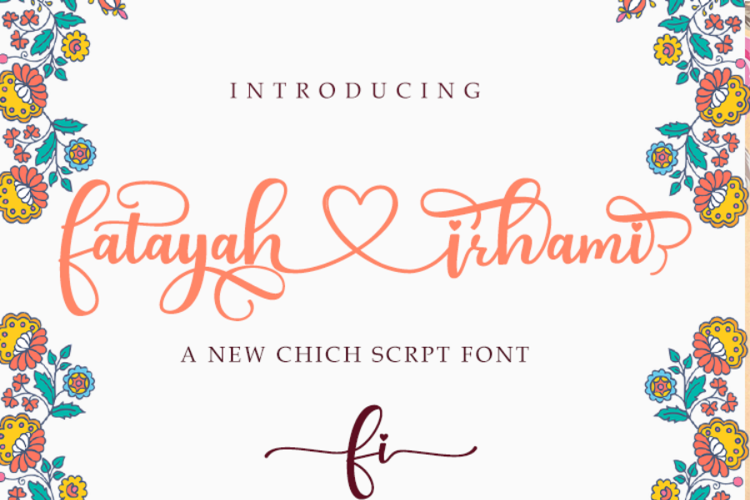
fatayah irhami Font
About fatayah irhami Font
FATAYAH IRHAMI Fonts are beautiful slick scripts that are suitable for branding, wedding invitations, and other romantic projects.